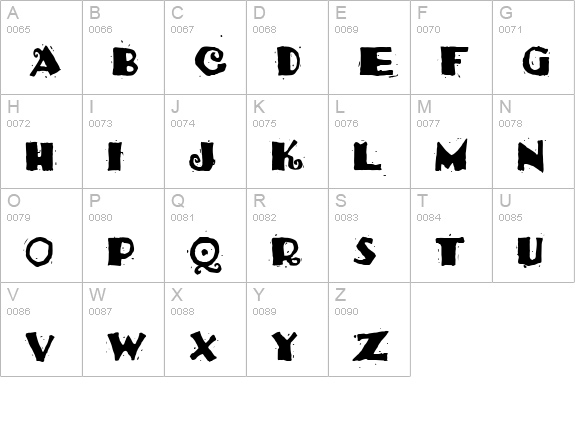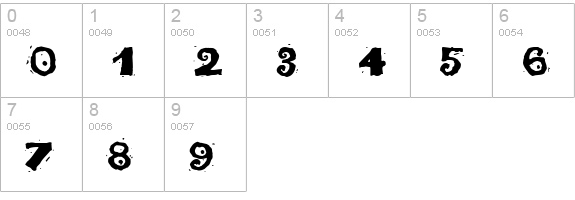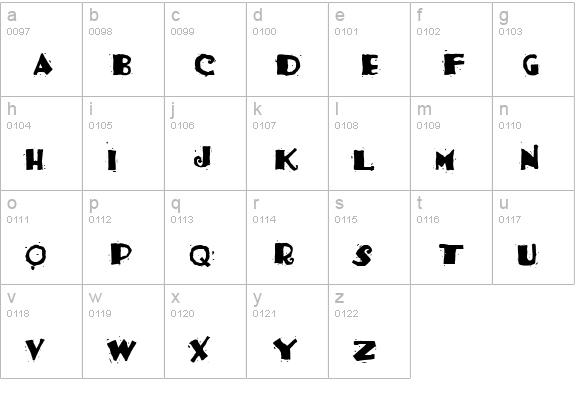
Gr-Tacosalad font is a unique and playful typeface that is perfect for adding a touch of fun to your designs. With its whimsical shapes and eye-catching style, this font is sure to make a statement. Whether you're creating a poster, invitation, or logo, Gr-Tacosalad font will bring a fresh and modern look to your project. Best of all, Gr-Tacosalad font is available for free download at FontsMarket.com. This means that you can easily access this charming font and use it in your personal and commercial projects without any cost. So why wait? Add a dash of creativity to your designs with the delightful Gr-Tacosalad font today!